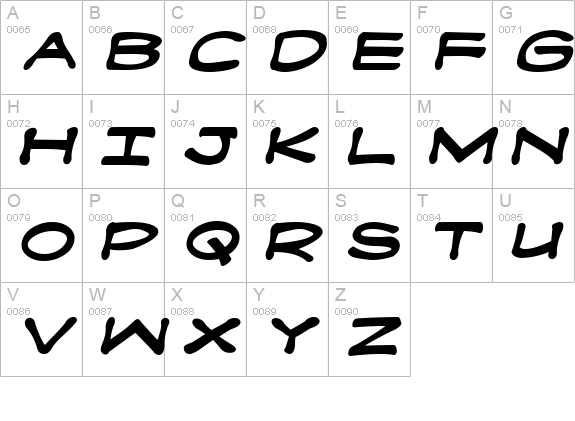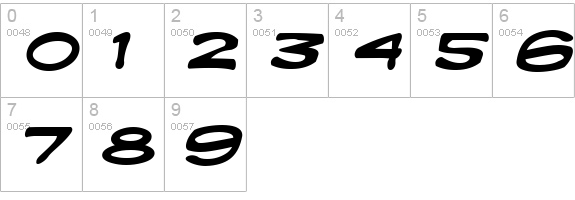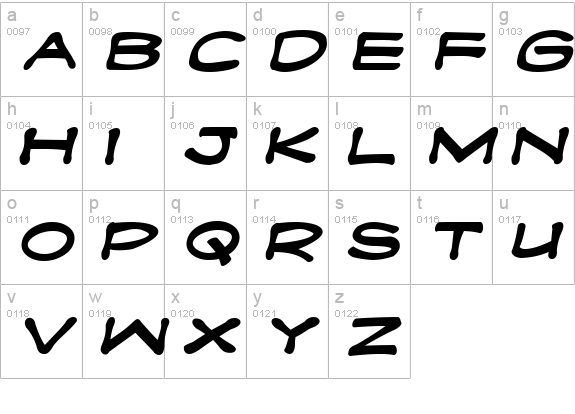
Fanboy Hardcore Bold Font Details
Fanboy Hardcore Bold is a strong, high-contrast variant in the Fanboy typeface family \xE2\x80\x94 well suited to headlines, attention-grabbing titles, and strong calls-to-action.
Fanboy Hardcore Bold font is the ultimate choice for those who are truly passionate about expressing themselves through bold and eye-catching typography. With its strong and edgy design, this font is perfect for making a statement and standing out from the crowd. Whether you're creating posters, logos, or social media graphics, Fanboy Hardcore Bold will add a touch of hardcore attitude to your designs. The best part is that Fanboy Hardcore Bold font is completely free to download at FontsMarket.com. So go ahead and unleash your inner fanboy with this dynamic and impactful font that is sure to make your projects pop!